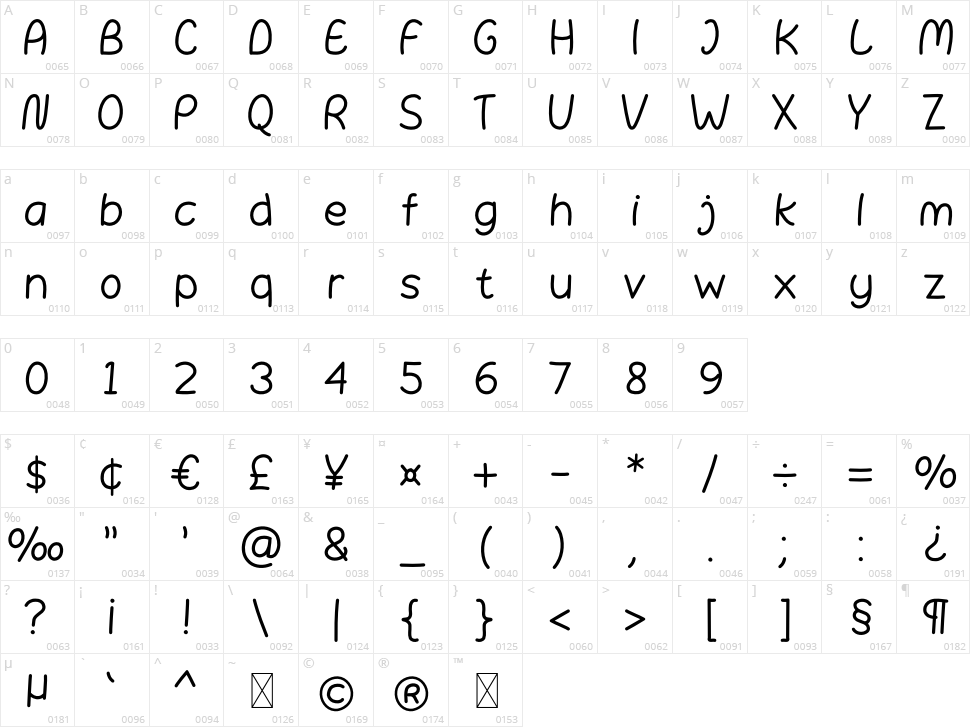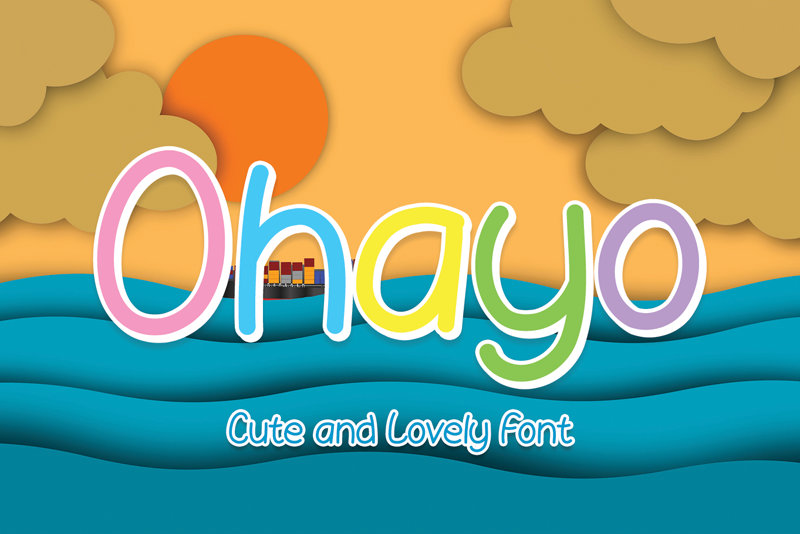
Ohayo
Note of the author Ohayo is a sweet, simple lettered and adaptable handwritten font. Its cute and full of life style makes this font a wonderful choice for brightening up your designs.